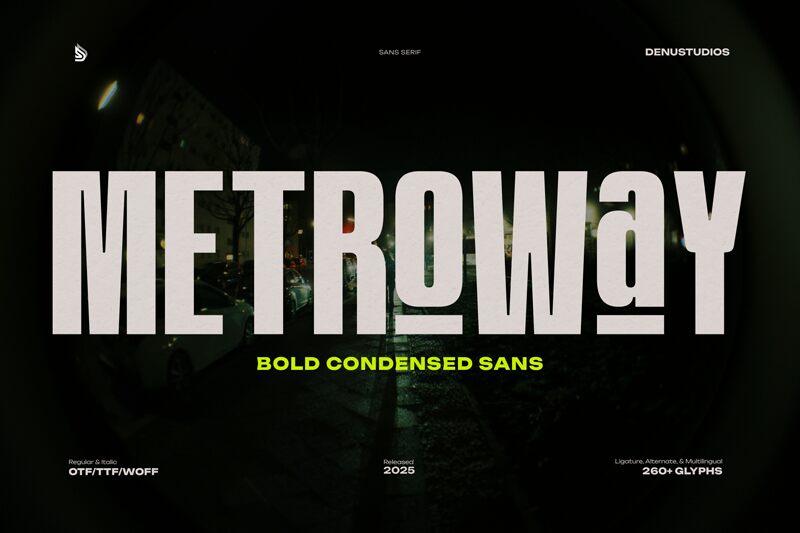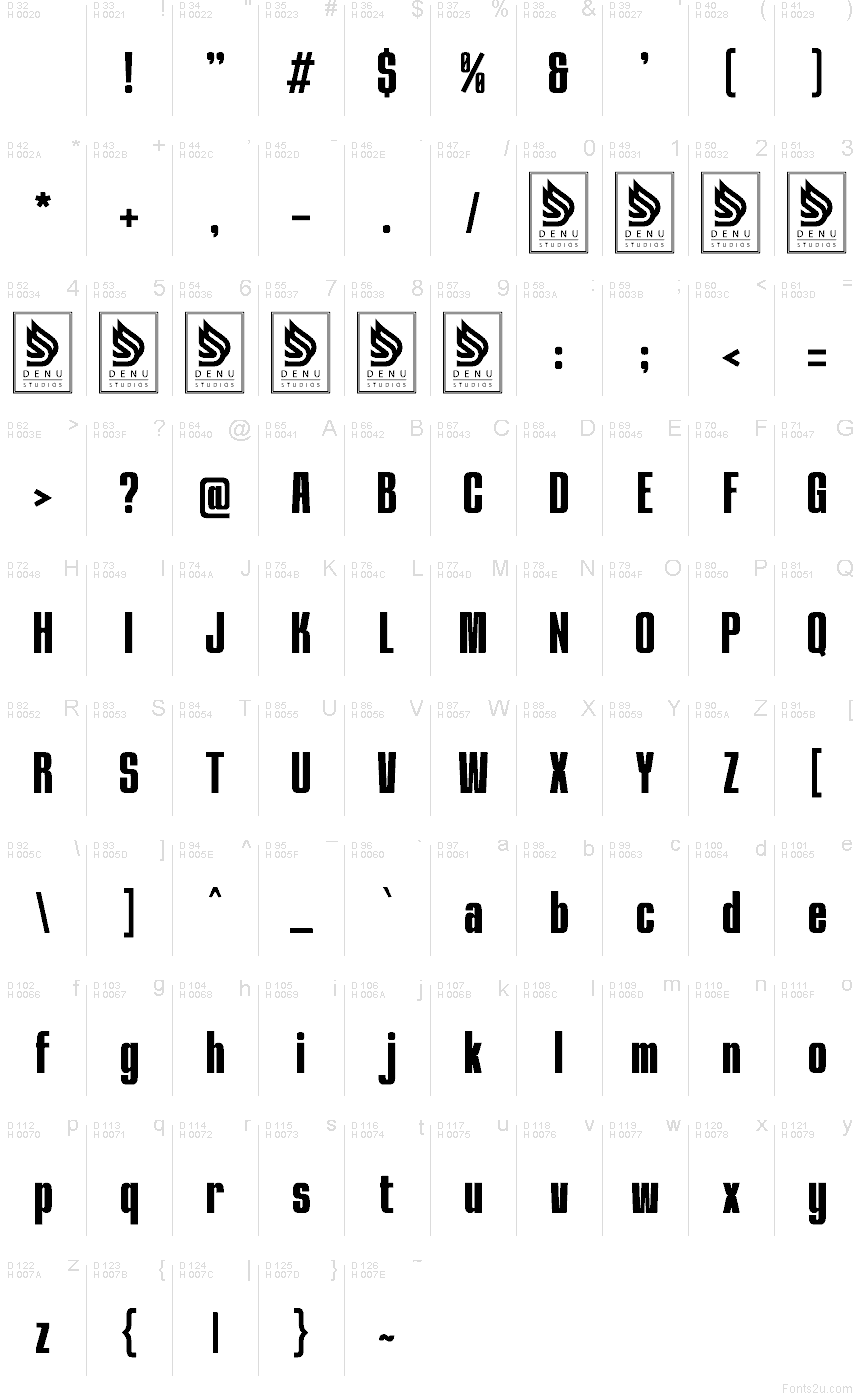
Metroway by Denustudios is a free condensed sans serif with a blunt, metropolitan feel. The letters look tightly packed and upright, mixing very tall narrow forms with heavy, blocky strokes, so the font lands somewhere between street signage and tabloid headline lettering.
That makes this free font a natural fit for posters, music flyers, magazine covers, title cards, and branding that needs a terse urban voice. It also works well for short headlines and wordmarks, where the squeezed width lets you push more letters into a compact space without losing that hard-edged presence.